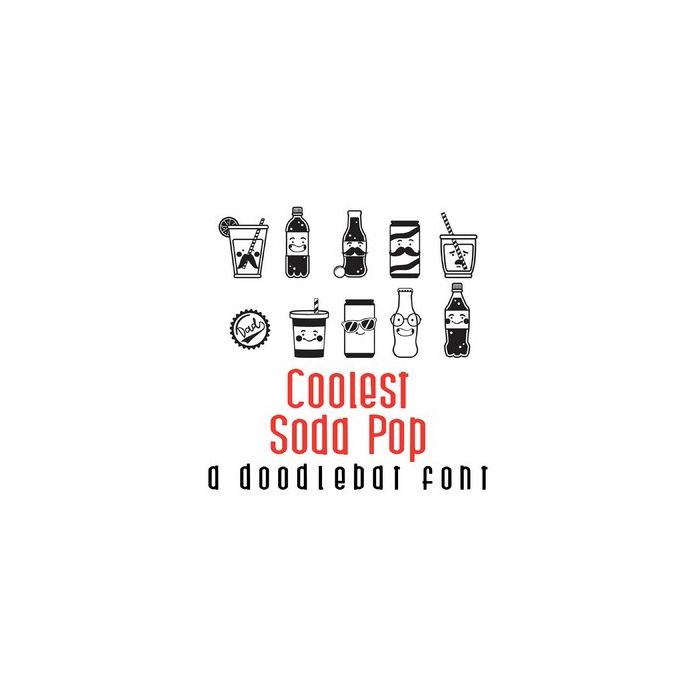
This doodlebat font features 26 soda pop images perfect for Dad. Use this doodlebat to create fun gifts, cards, crafts, decor, party decor, planner stickers, scrap book pages and more!